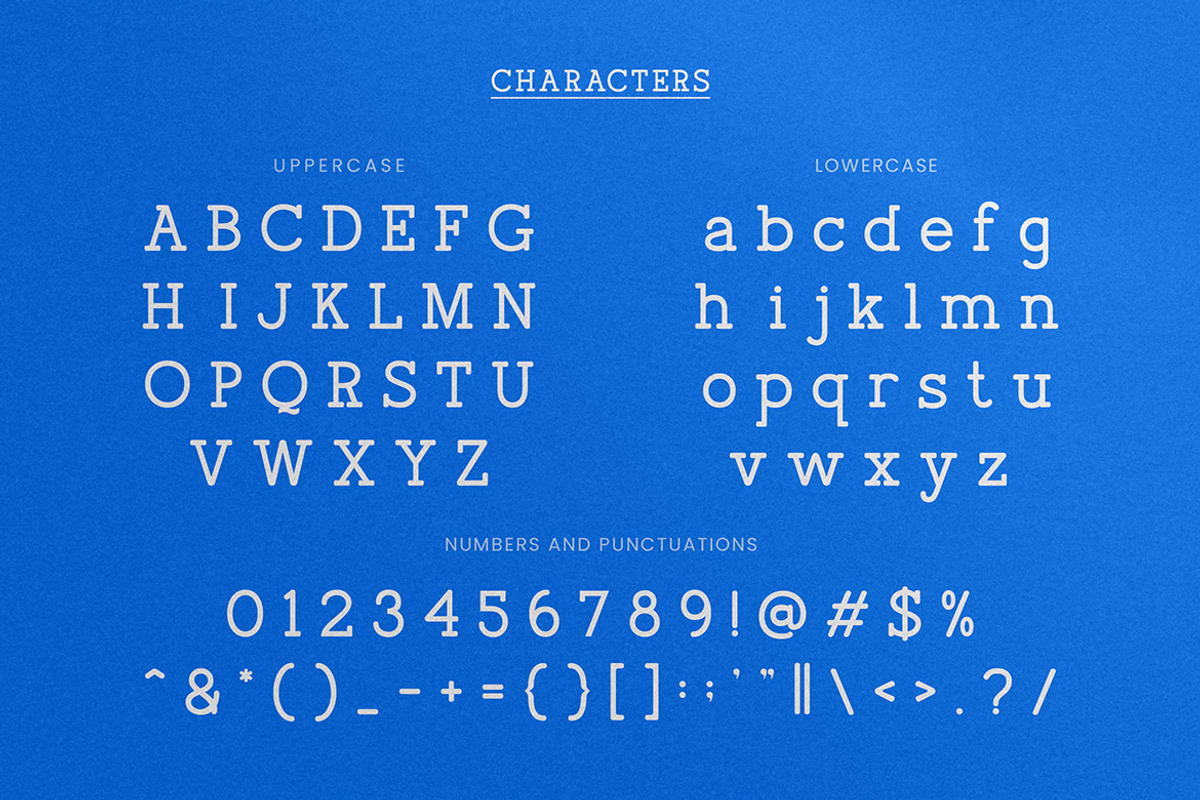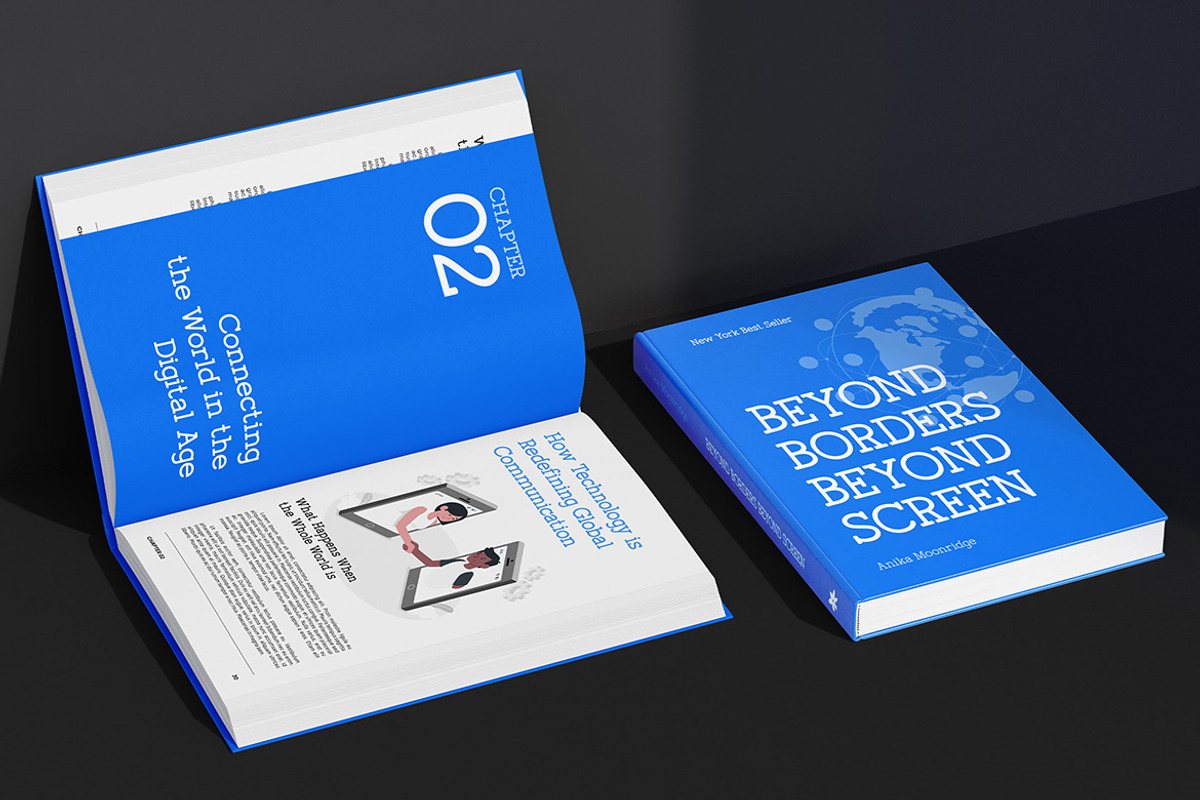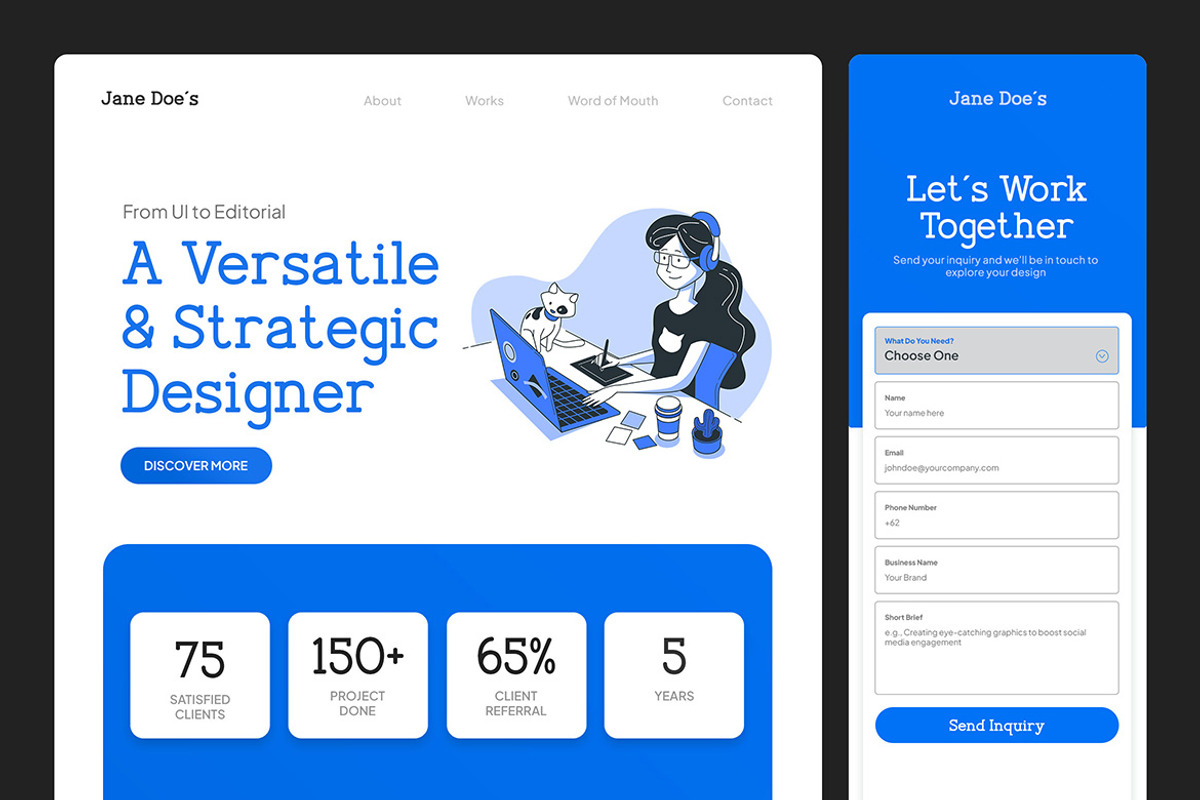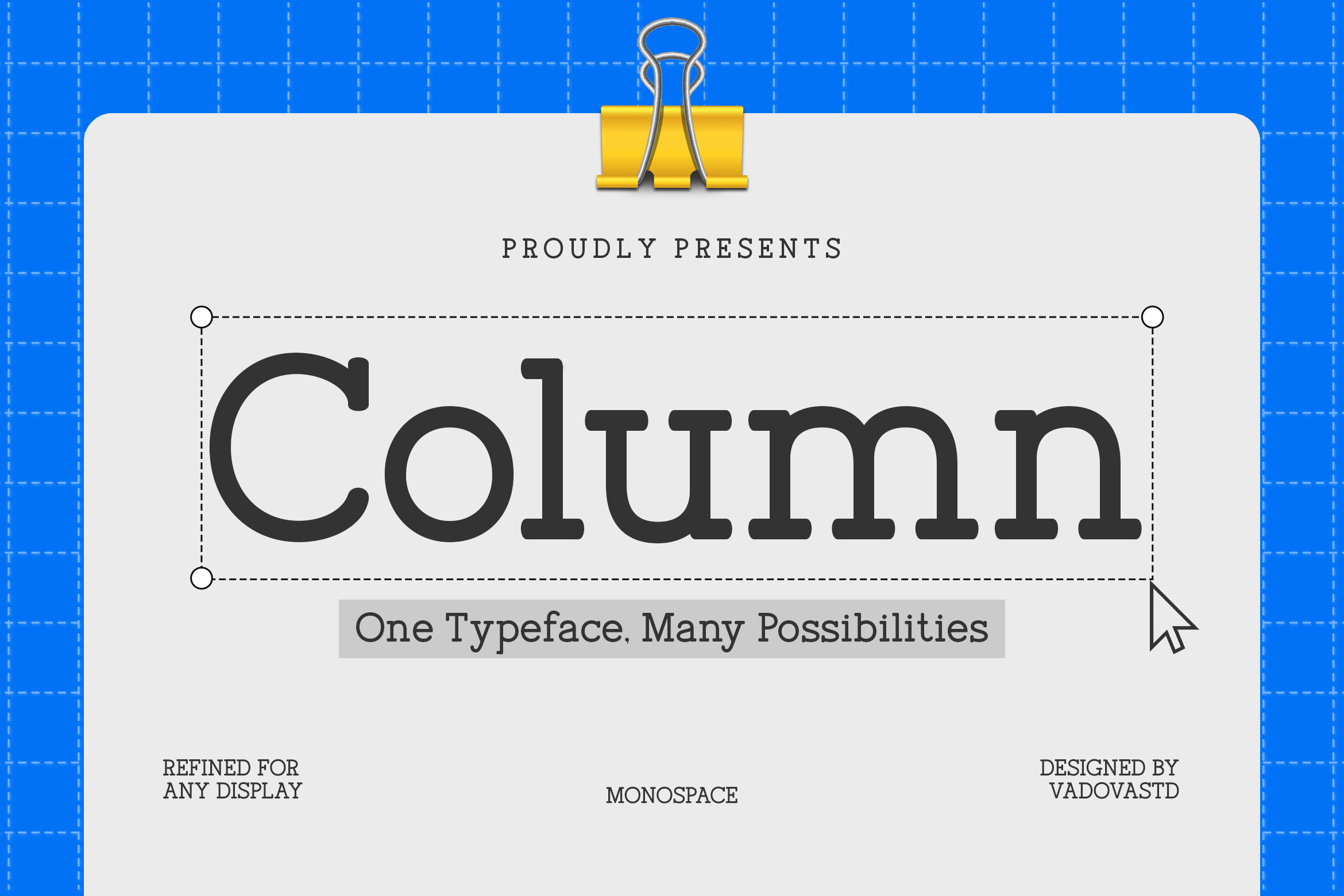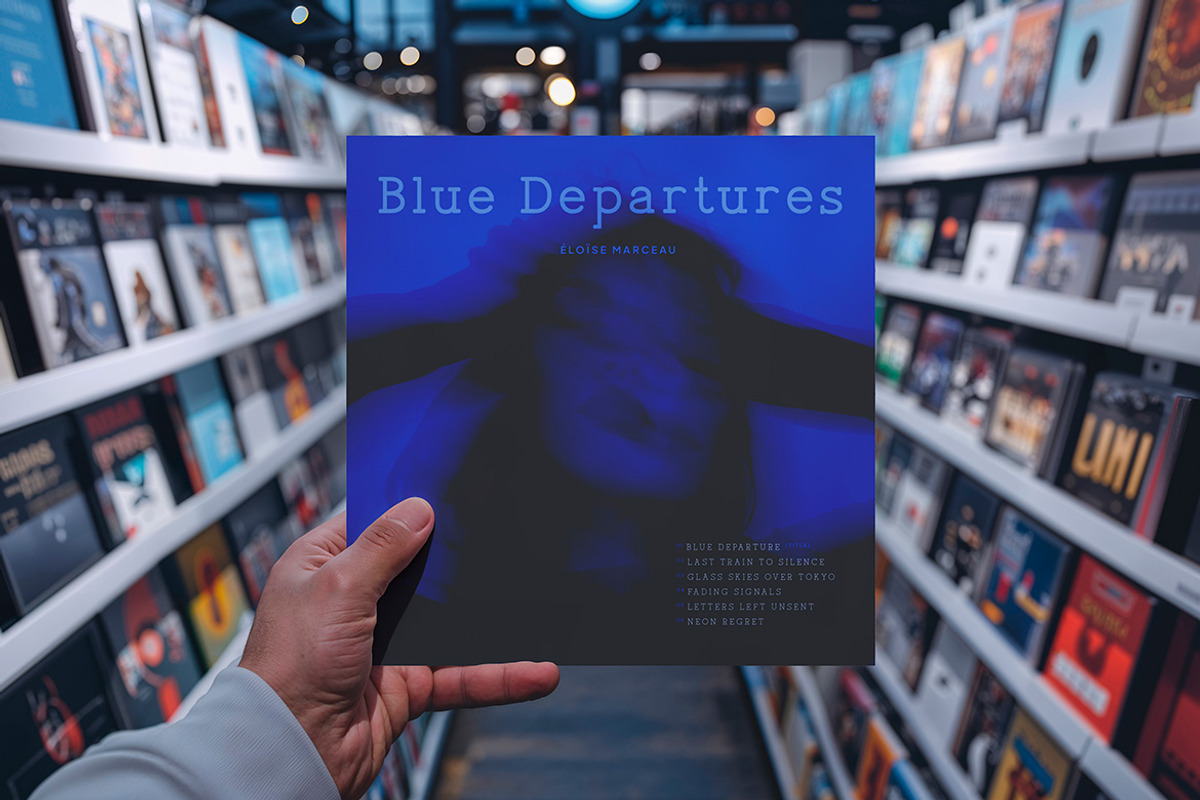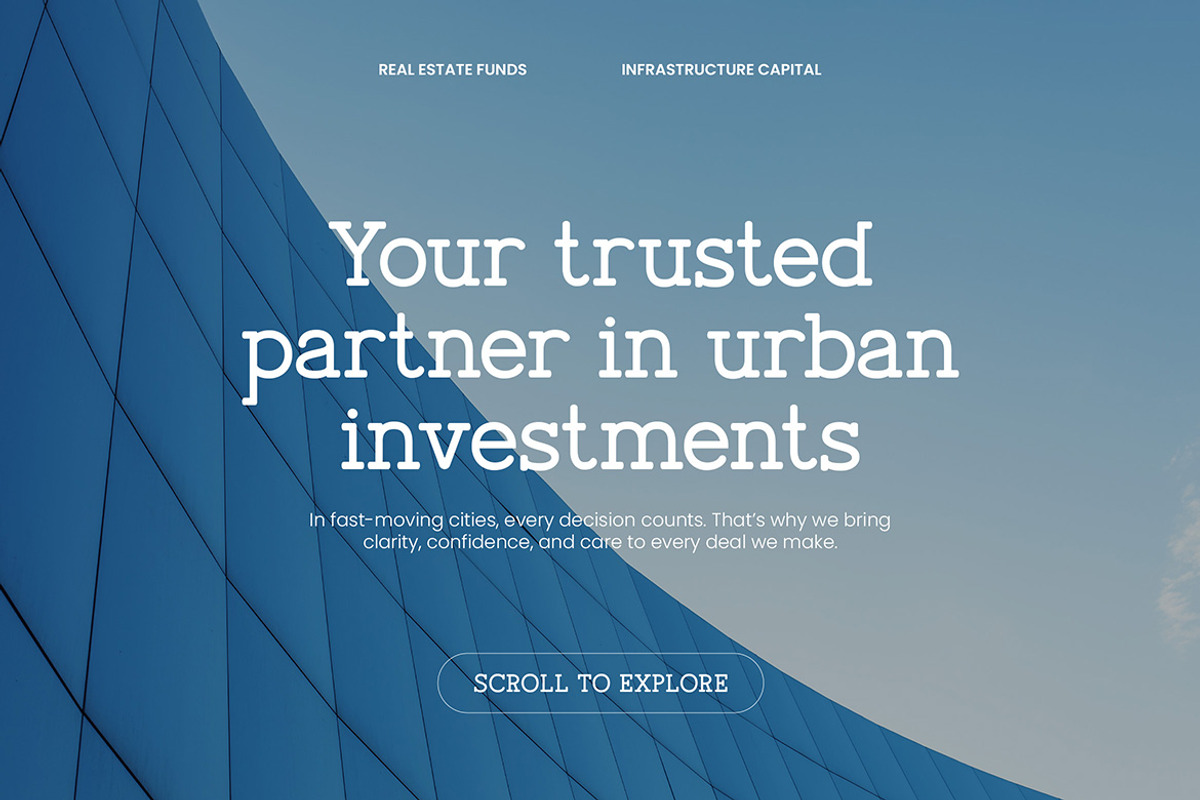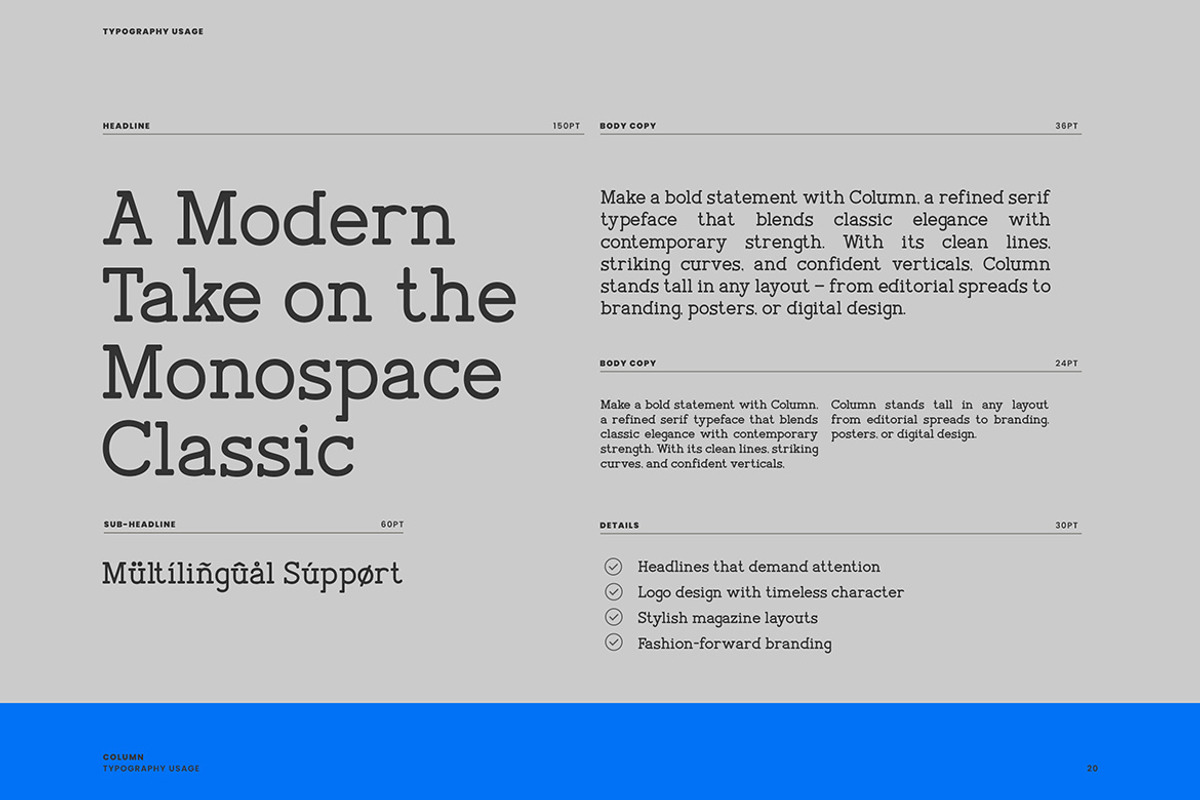
Column Modern Soft Slab Serif Font
Column is a modern serif typeface inspired by monospace typewriter forms, reimagined for contemporary design needs. It features uniform spacing, strong verticals, and rounded terminals that balance clarity with warmth. This font includes uppercase and lowercase characters, numerals, punctuation, and multilingual support.
Column blends the precision of monospaced fonts with the elegance of serif styling, making it ideal for both tech-inspired and editorial work. Perfect for designers seeking a font that conveys clarity and structure without sacrificing personality. It works beautifully in layouts for magazines, branding materials, coding visuals, modern book covers, and fashion-forward design systems.
- Monospace serif structure with classic slab influence
- Balanced proportions and refined terminals for clarity
- Clean vertical stress and uniform spacing for readability
- Rounded forms add warmth to mechanical precision
- Versatile design for both editorial and branding contexts
- Brand identity systems with a calm yet confident tone
- UI/UX templates for modern tech products and apps
- Editorial layouts, magazines, and minimalist books
- Product packaging and labels with clean structure
- Social media kits and marketing assets with subtle elegance
Redefine your typography, Column blends classic form with modern versatility